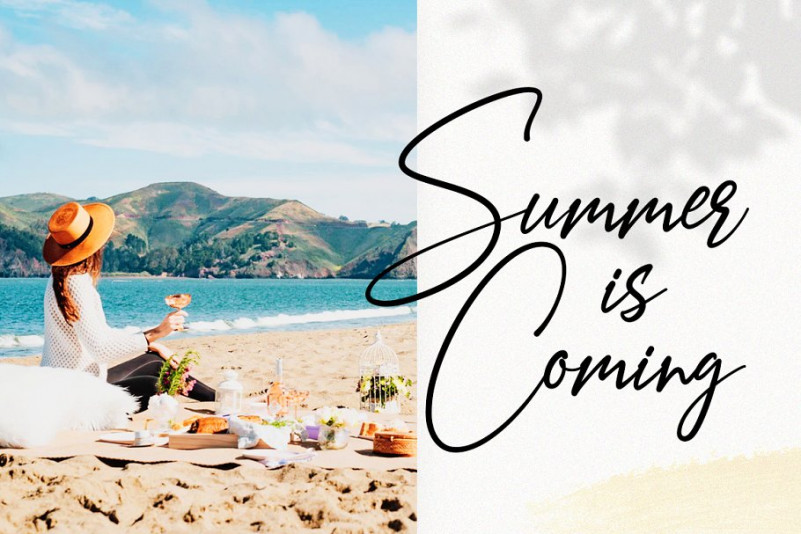
Amostely Signature Font
Amostely Signature Demo Font
A lovely natural signature font by Kotak Kuning Studio. Accentuating the original side of human handwriting. Introducing Amostely Font. Amostely Signature Font is a handwritten signature script with a natural & stylish flow. This font has a multitude of natural looking ligatures in its OpenType features – making the font look as close to natural handwriting as possible. This collection of scripts is perfect for personal branding.